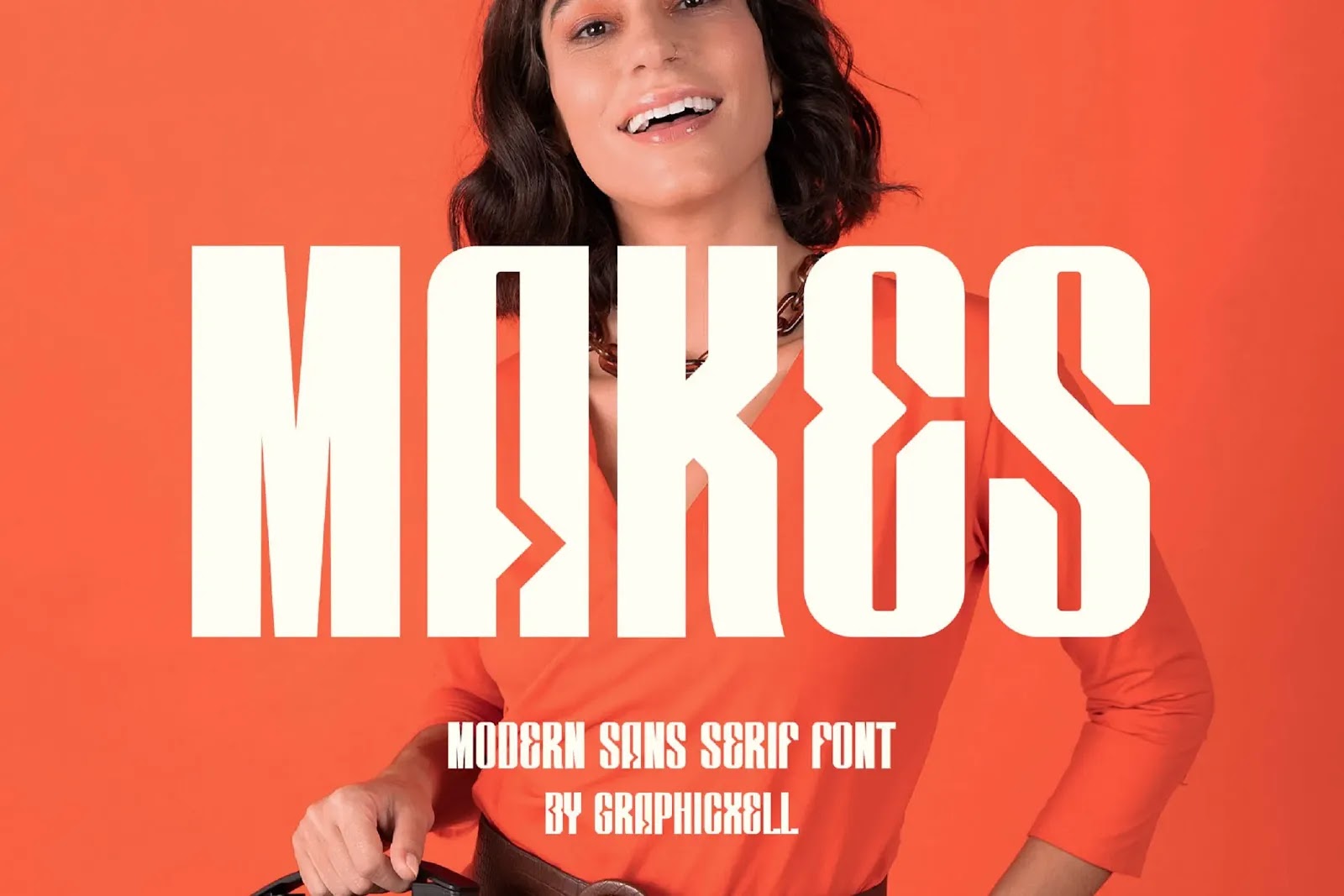
Makes Font is a refined typeface that captures a harmonious rhythm through its symmetrical and balanced design. Drawing from a blend of diverse inspirations, it features meticulously adjusted proportions, subtle contours, and nuanced contrasts that create a visually appealing yet understated aesthetic.
Its clean, elegant structure ensures versatility without compromising on style or clarity. Whether you're designing brochures, advertisements, branding assets, logos, magazines, or layout compositions, Makes Font adapts beautifully to both print and digital formats with sophistication and ease.
From poster designs to post templates, video graphics, and even game interfaces, Makes Font delivers a minimalist elegance that enhances every project. It’s a modern and thoughtfully crafted choice for designers seeking a typeface that combines visual appeal with functional versatility.